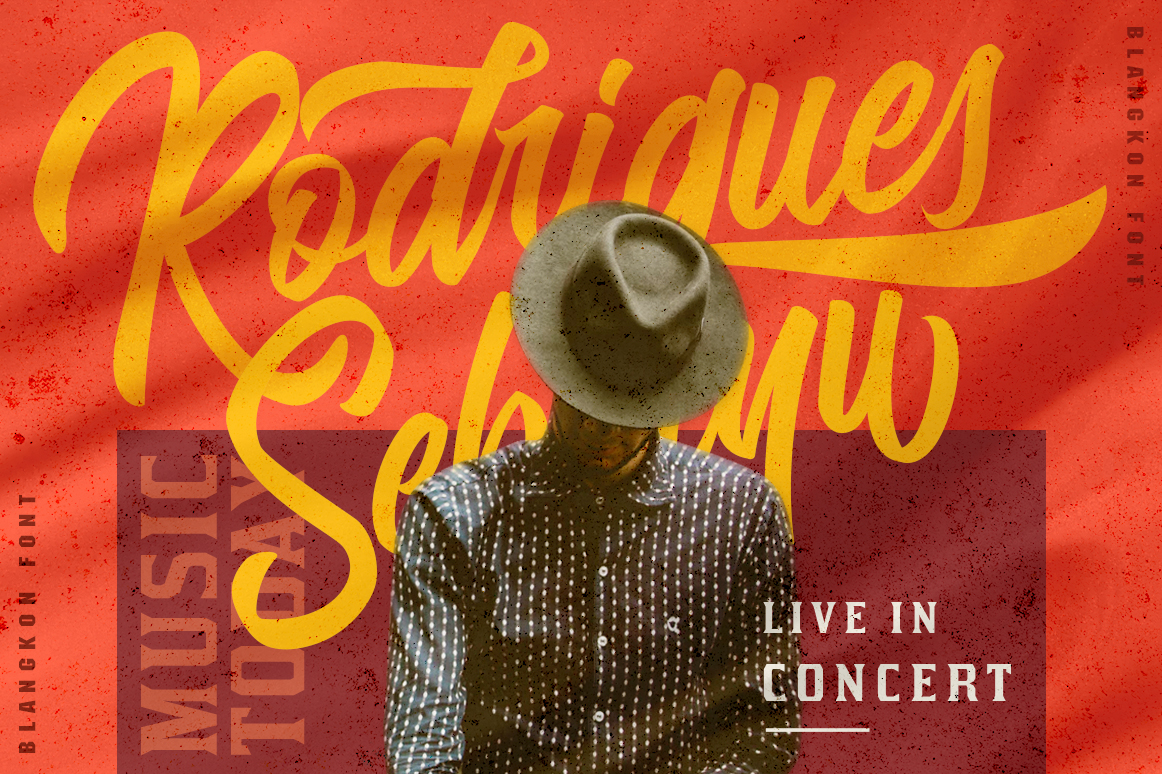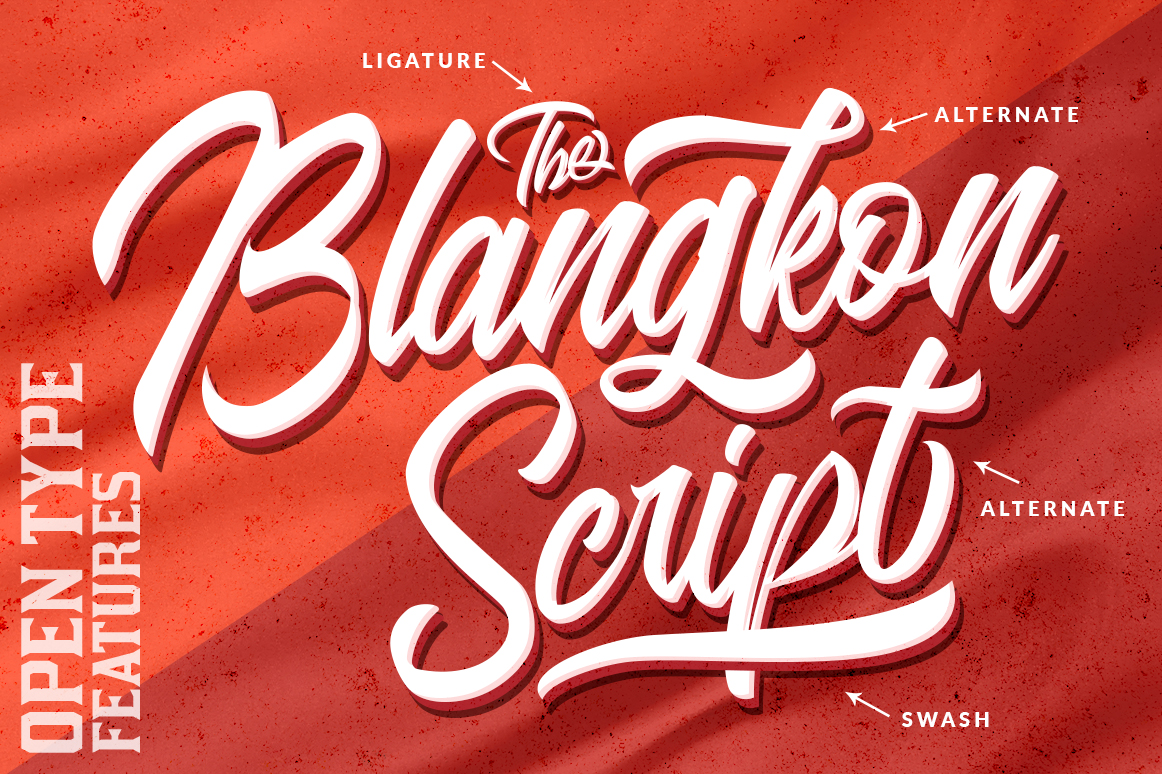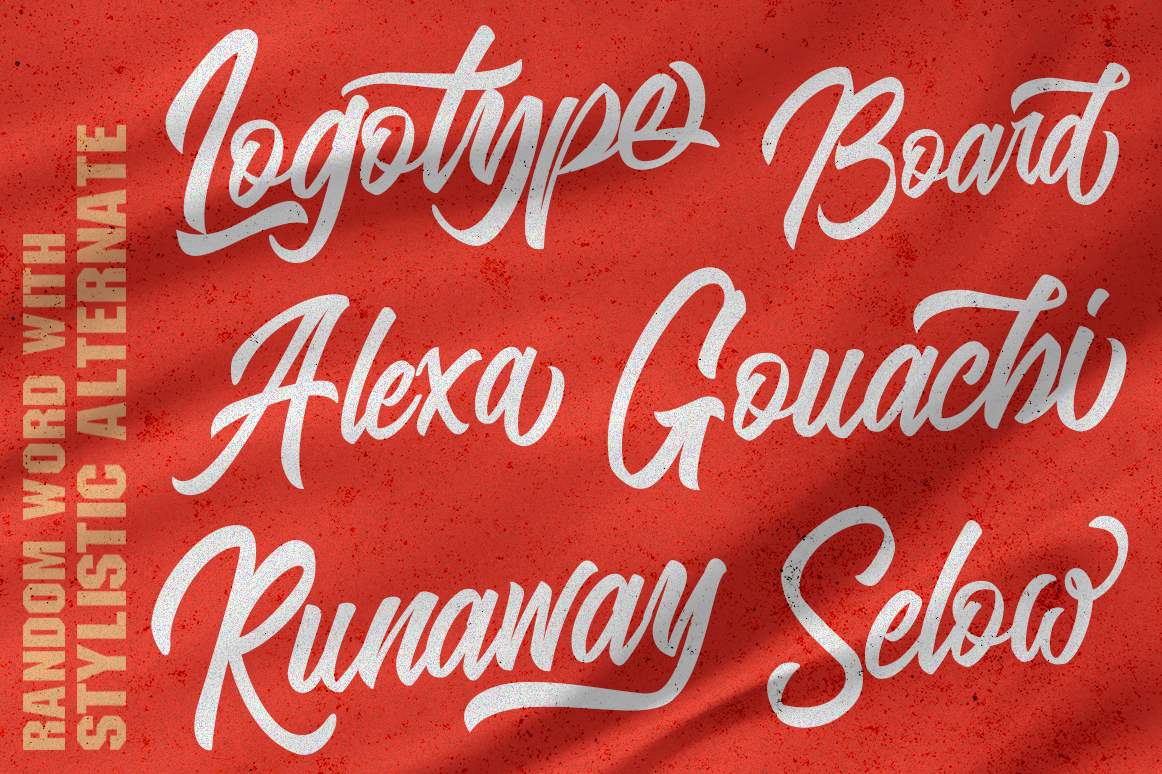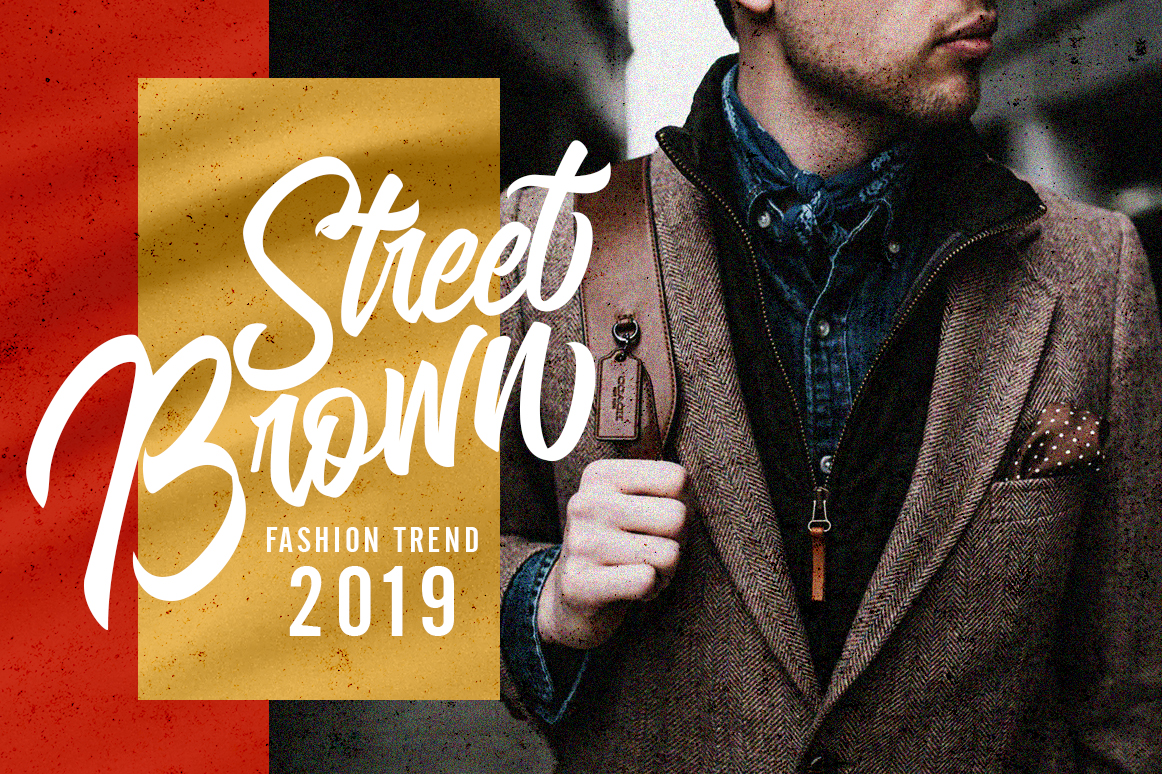
Blangkon Script Free Font
Blangkon Script Free Font is an amazing script font, inspired by contemporary fashion and streetwear. It has a natural handwritten touch which will give your design a personal feel. Blangkon Script Free Font offers gorgeous typographic will perfect for many different projects such as logos & branding, invitation, stationery, wedding designs, social media posts, advertisements, product packaging, product designs, label, photography, watermark, special events or anything that need handwriting taste. This free typeface was designed by a talented Kotak Kuning. If you like it don’t forget to check out the full version.